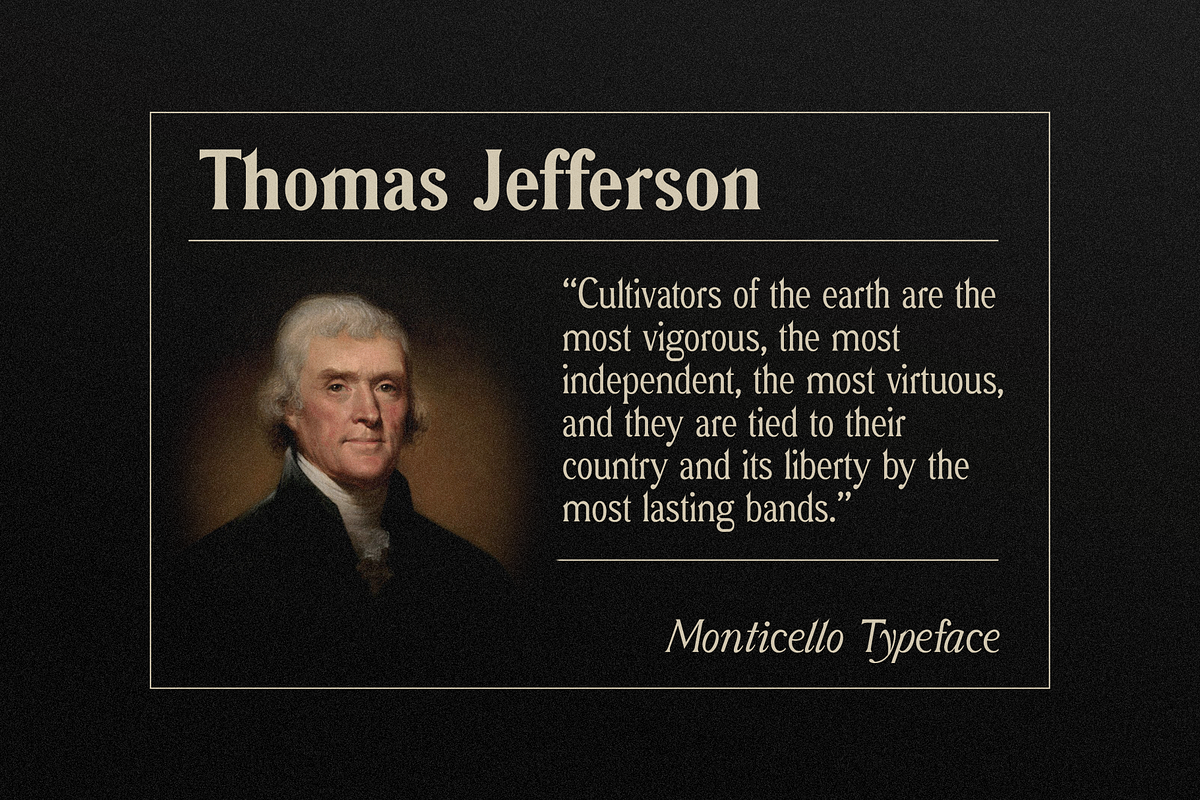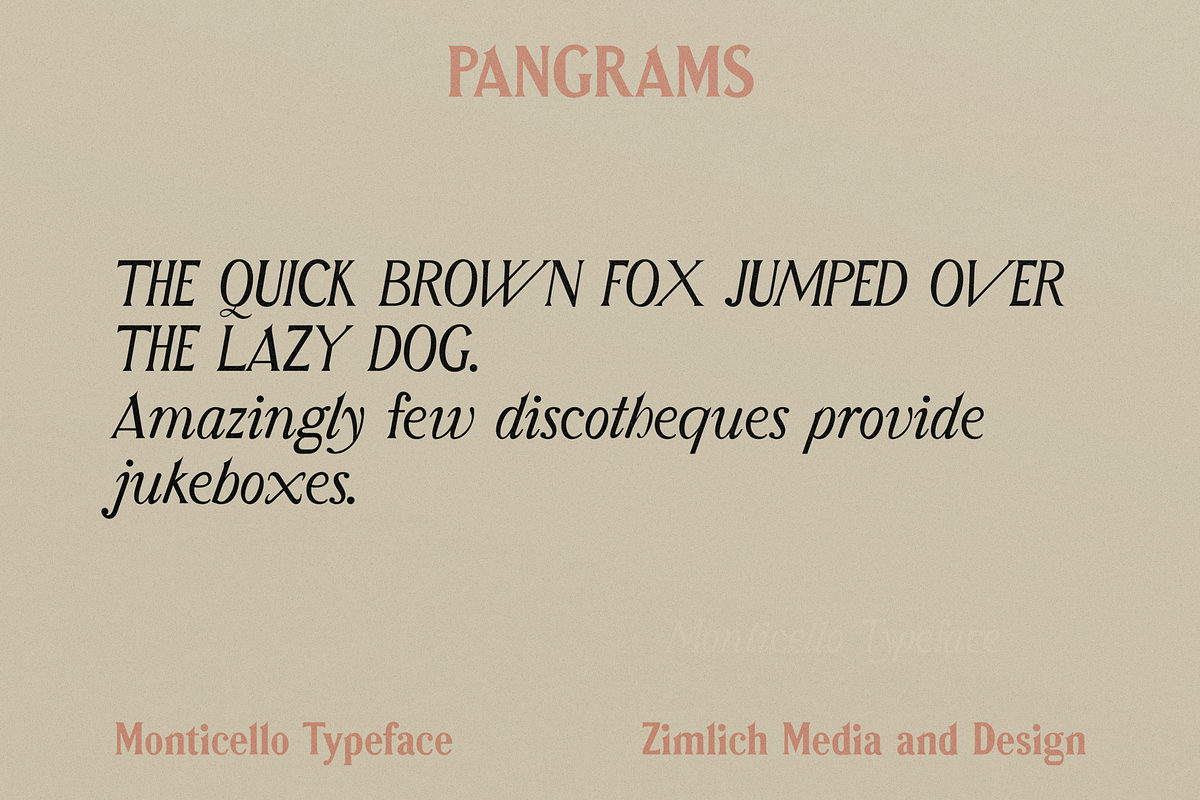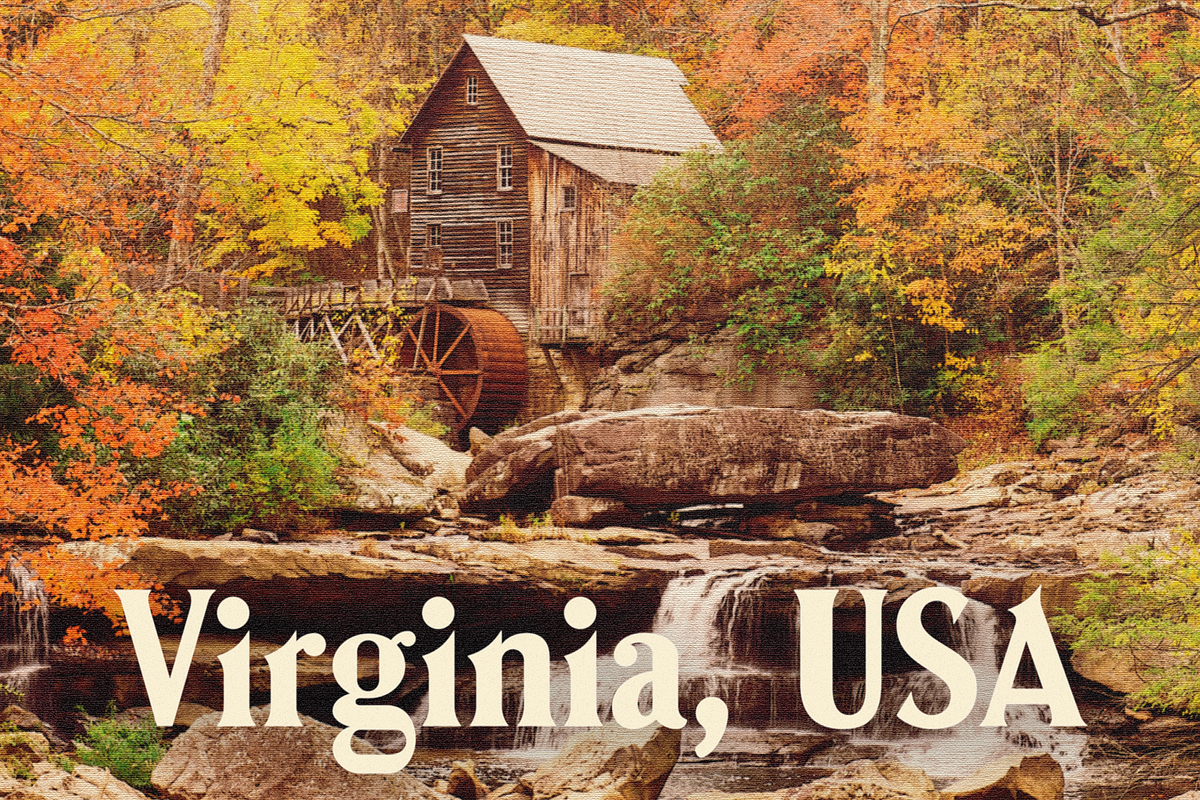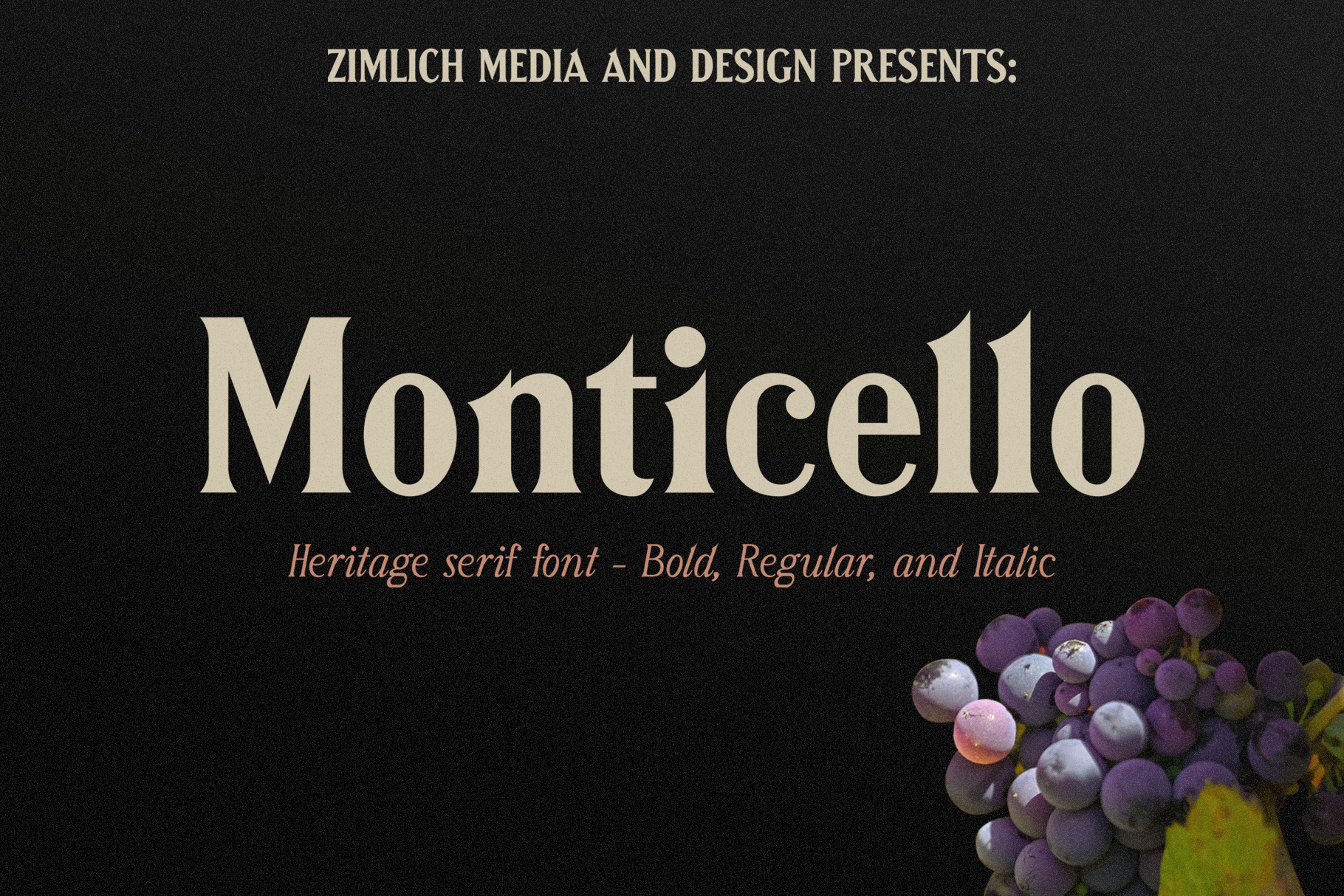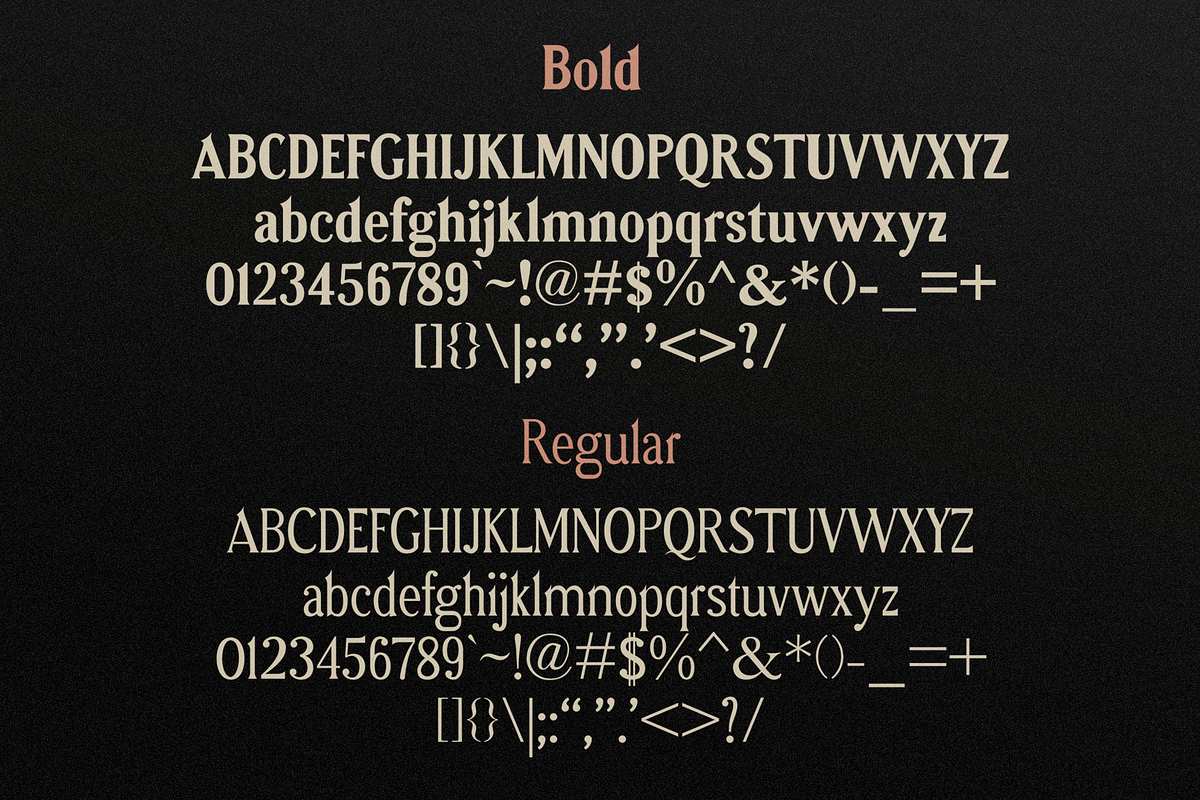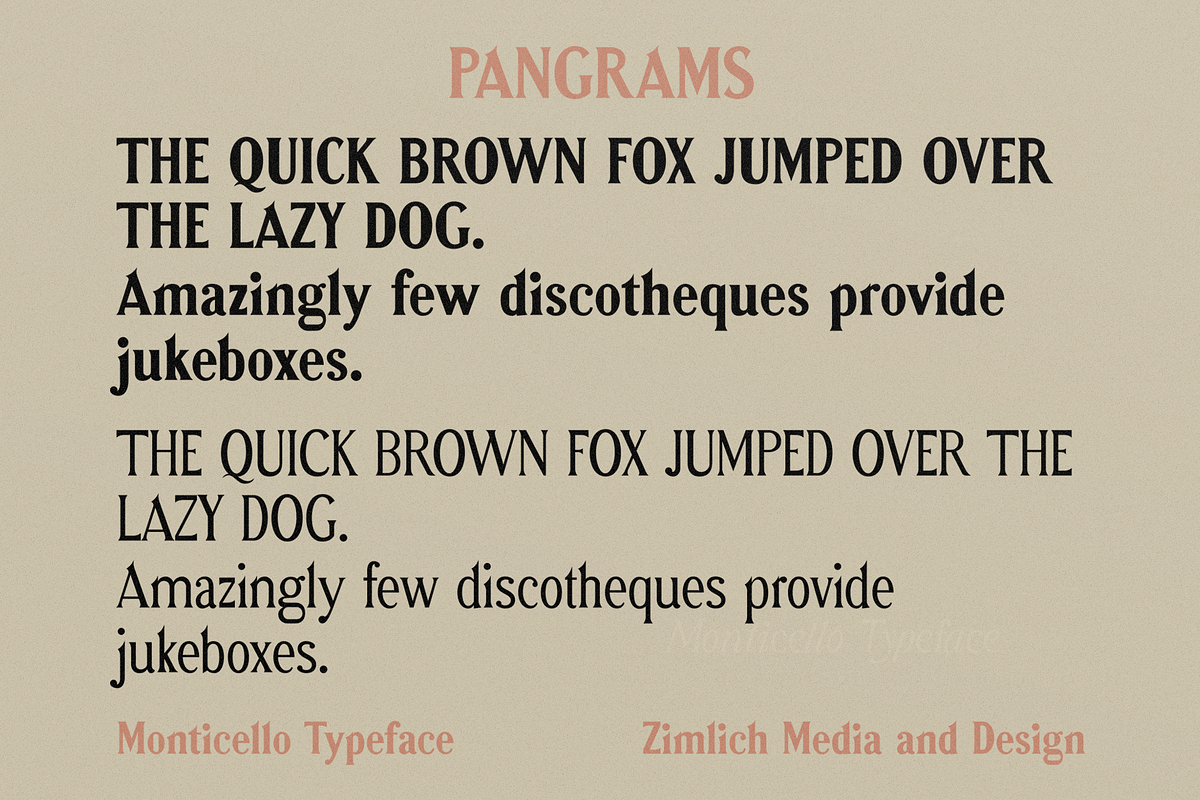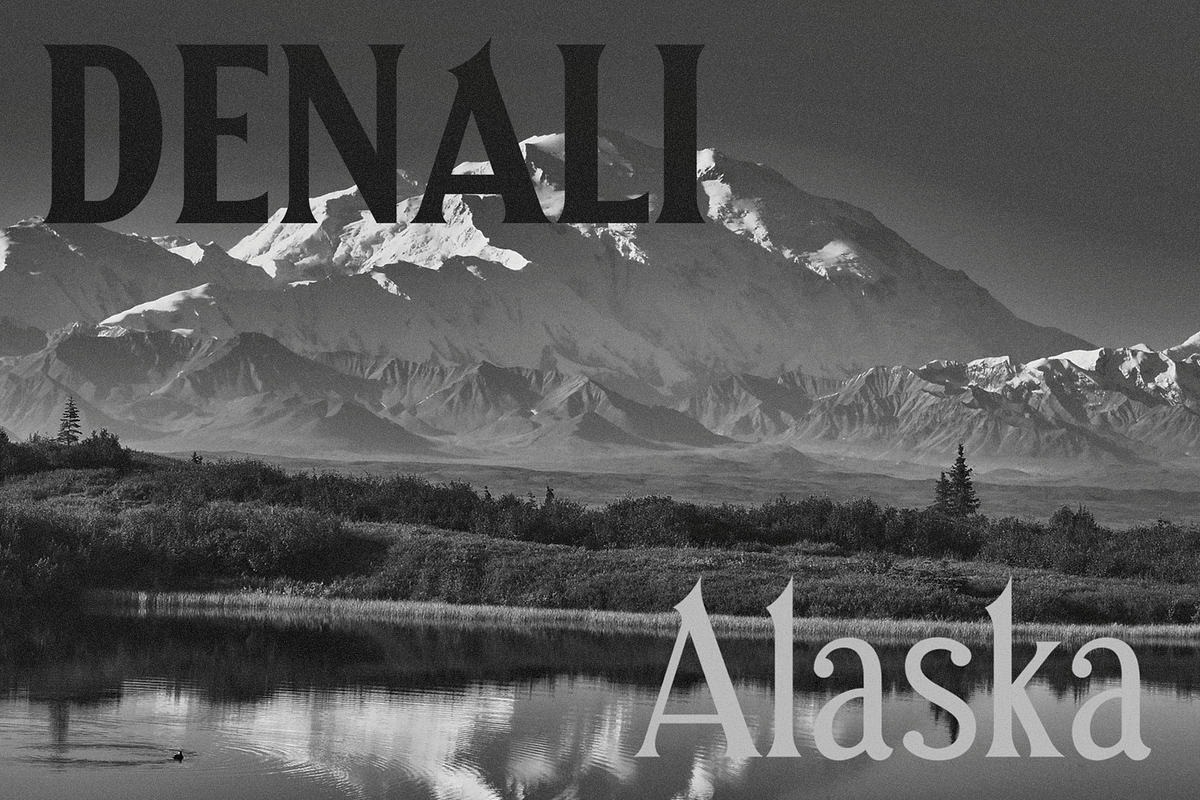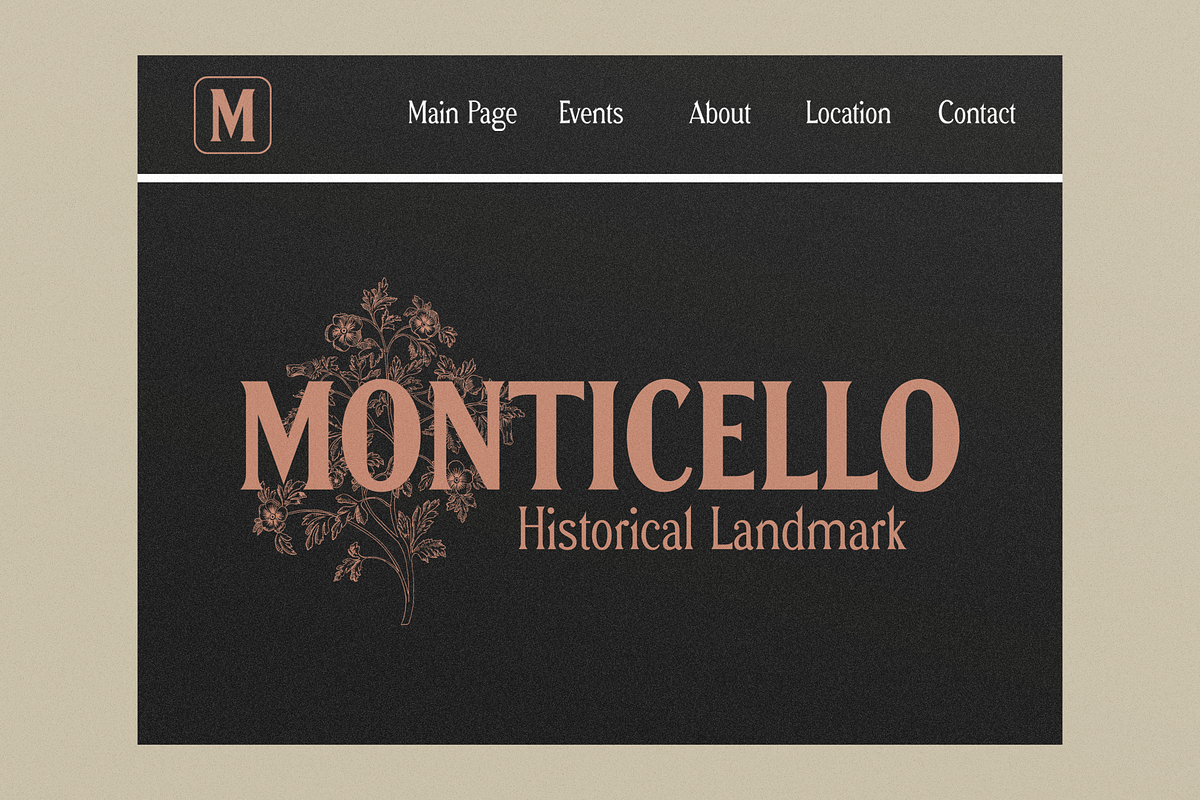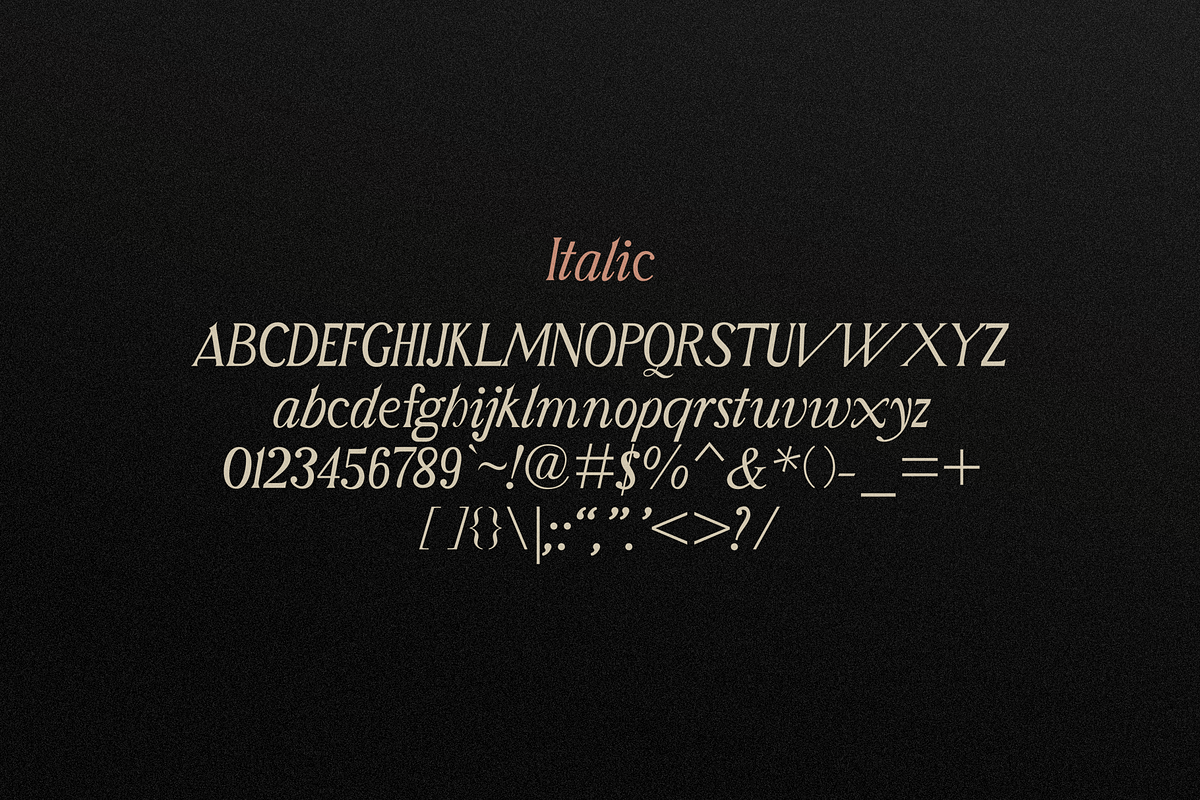
Monticello - Heritage Serif Typeface
Monticello is a heritage inspired typeface with strong weights and sharp serifs. Much like its namesake, the residence and plantation of American Founding Father Thomas Jefferson, Monticello will imbue your projects with a distinguished and industrious spirit.
- Regular, bold and Italic
- Uppercase and lowercase letters